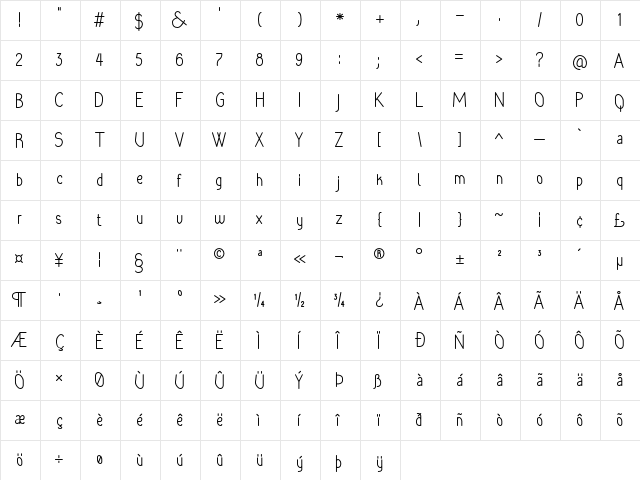
Rara Dolor Regular
| Foundry | Fabiane Lima |
| Designer | Fabiane Lima |
Design Context for Rara Dolor Typeface
Rara Dolor takes a measured approach to typography — its balanced proportions and neutral character make it a reliable workhorse for both digital and print work.
Pro Tip: Pair Rara Dolor with a font of contrasting weight or personality to build a more expressive typographic hierarchy.